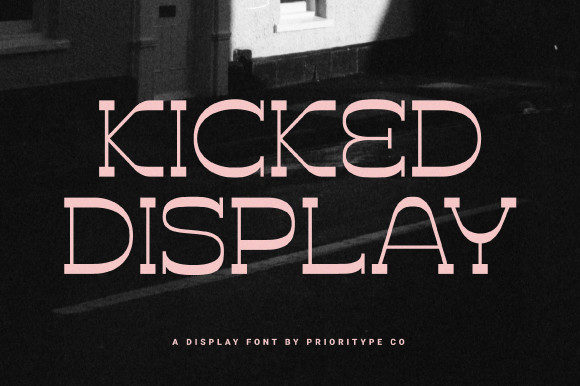
Kicked: A Vintage Font That Elevates Design
For designers, marketers, and creators looking to add a touch of nostalgia with modern flair, Kicked offers a unique solution. This vintage-styled display font brings character and charm to any project, making it ideal for branding, editorial design, and creative expressions that stand out.
What Makes Kicked Unique?
Kicked is more than just a font—it's a design statement. Its distinct letterforms blend retro aesthetics with contemporary readability, offering a fresh take on classic typography. Whether you're working on a logo, a poster, or a website header, Kicked adds visual interest without overwhelming the message.
The font’s irregular strokes and subtle imperfections give it a handcrafted feel, making it perfect for projects that aim to convey authenticity and personality. Unlike generic sans-serif or serif fonts, Kicked has a story to tell, which can resonate deeply with audiences looking for something different.
How Kicked Can Enhance Your Work
Designers often seek fonts that not only look good but also serve a purpose. Kicked does both by adding a layer of visual depth to any composition. For instance, in a marketing campaign, using Kicked for headlines can draw attention and create a memorable brand identity. It works especially well when paired with simpler typefaces to balance contrast and clarity.
Consider a small business owner launching a new line of handmade products. By incorporating Kicked into their packaging or social media graphics, they can communicate craftsmanship and individuality, setting their brand apart from mass-produced competitors.
Practical Applications for Kicked
- Brand Identity: Use Kicked for logos, tags, or slogans to create a distinctive visual signature.
- Editorial Design: Add a vintage touch to magazine layouts, book covers, or blog headers for a nostalgic appeal.
- Advertising: Stand out in digital or print ads with a font that captures attention and conveys a unique tone.
- Personal Projects: Enhance resumes, portfolios, or creative work with a font that reflects your style and values.
Who Benefits Most From Using Kicked?
Entrepreneurs, artists, and content creators who want to express their individuality will find Kicked particularly useful. It’s a tool that supports creativity without requiring advanced design skills. Even those with limited experience in typography can use Kicked effectively by pairing it with complementary fonts and layouts.
Marketers aiming to connect with younger audiences may also appreciate Kicked’s ability to evoke a sense of retro cool. Its versatility allows it to fit into various styles, from minimalist to bold and expressive.
Real-World Examples of Kicked in Action
Imagine a blogger writing about vintage fashion trends. Using Kicked for their post titles could immediately signal the theme and attract readers interested in that niche. Similarly, a designer creating a portfolio site might use Kicked for section headings to add a personal touch and differentiate their work from others.
In a more professional setting, a startup founder might choose Kicked for their company’s website to reflect a creative, forward-thinking approach. The font’s uniqueness helps reinforce the brand’s identity and makes the site more visually engaging.
Limitations and Considerations
While Kicked is a powerful tool, it’s important to recognize its limitations. As a display font, it’s best suited for short text elements like headlines, logos, or captions rather than body copy. Overusing it can reduce readability and dilute its impact.
Users should also consider the context in which they apply Kicked. In formal or corporate settings, a more traditional font might be more appropriate. However, in creative or artistic environments, Kicked can be a valuable asset that enhances visual storytelling and emotional connection.
Comparing Kicked to Other Fonts
When choosing a font, it’s helpful to compare options based on style, legibility, and purpose. Kicked stands out for its vintage aesthetic, but other fonts may offer similar benefits depending on the project. For example, a font like Bebas Neue provides a clean, bold look, while a script font might add elegance and grace.
Ultimately, the choice depends on the desired outcome. Kicked is ideal for projects that benefit from a mix of nostalgia and modernity, but it’s always wise to test multiple options to see what works best for your specific needs.
Final Thoughts on Kicked
Kicked is more than just a font—it’s a creative tool that can transform how ideas are presented and perceived. Its vintage style, combined with modern design sensibilities, makes it a versatile choice for a wide range of applications. Whether you’re building a brand, designing a publication, or simply exploring typography, Kicked offers a way to express yourself with confidence and style.
By integrating Kicked into your workflow, you can elevate your designs, capture attention, and make a lasting impression. Its unique character invites creativity and adds value to any project where visual expression matters.